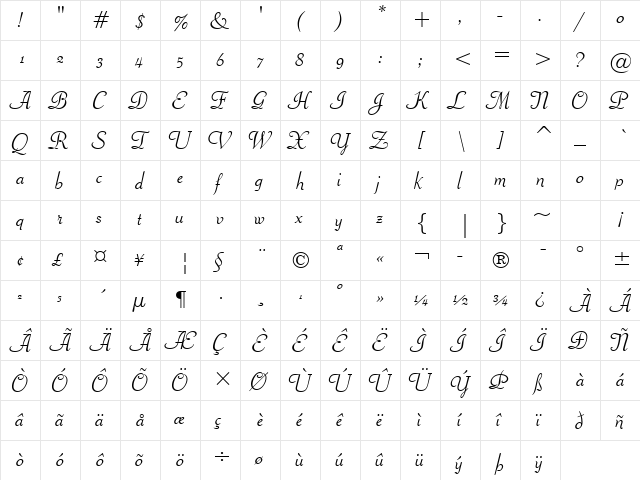
Piranesi It BT Regular
Design Context for Piranesi It BT Typeface
Piranesi It BT offers clean, dependable letterforms without strong stylistic allegiance, making it a practical choice for designers who need flexibility.